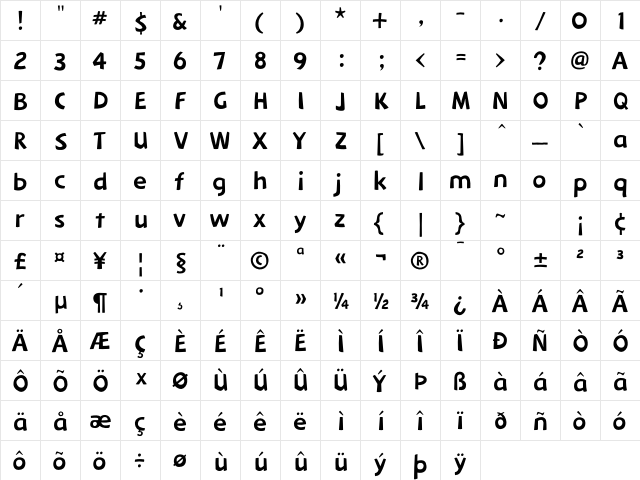
MenyakaRegular Font Preview
MenyakaRegular Regular
MenyakaRegular Font Details
| Designer | Jan Erasmus |
Design Context for MenyakaRegular Typeface
MenyakaRegular is a composed and adaptable typeface that performs quietly and consistently across a wide range of design contexts.